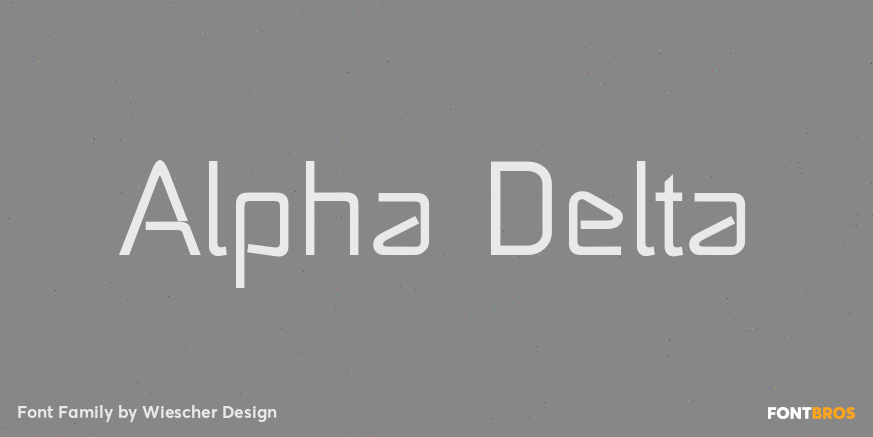
HomeFont BrosGroovy (1966-1978)Alpha Delta Groovy (1966-1978) Alpha Delta FacebookXPinterestWhatsApp 1 of 1 About Alpha Delta The standard paperclip is the basic idea behind this Alpha Delta. By working on it, I changed it so that it doesn\’t look too much like a paperclip any more. Things happen, Gert Wiescher  DOWNLOAD ON FONT BROSThis font is sold and delivered by Font Bros. Font Canyon may earn a commission if you buy through this link. People also explored Zapellin Font New Old English Pistachic Font Jungle Queen Font Lovebird Font Bumbees Font Rayneiva Font Craftery Font Scary Spider Font 221 0 TagsAlpha Delta Font Previous articleAvionicNext articleAngostura LEAVE A REPLY Cancel reply Comment: Please enter your comment! Name:* Please enter your name here Email:* You have entered an incorrect email address! Please enter your email address here Website: Save my name, email, and website in this browser for the next time I comment. Personal Use Free Dolce Vita Personal Use Free Read more about this font Avagan Personal Use Free Read more about this font Mallvirra Personal Use Free Read more about this font Cottage Personal Use Free Read more about this font BLOG How to Install and Use Fonts on Windows, macOS, and Web Projects How to Install and Use Fonts on Windows, macOS, and Web Projects Fonts are a crucial part of design and branding. Whether you’re designing a... Free vs Paid Fonts: Why Investing in Premium Fonts Is Worth It Top 7 Google Fonts Alternatives for Faster and Privacy-Friendly Web Design (2025) How to Cut Any Font on Cricut: Convert a Font to SVG (Free)